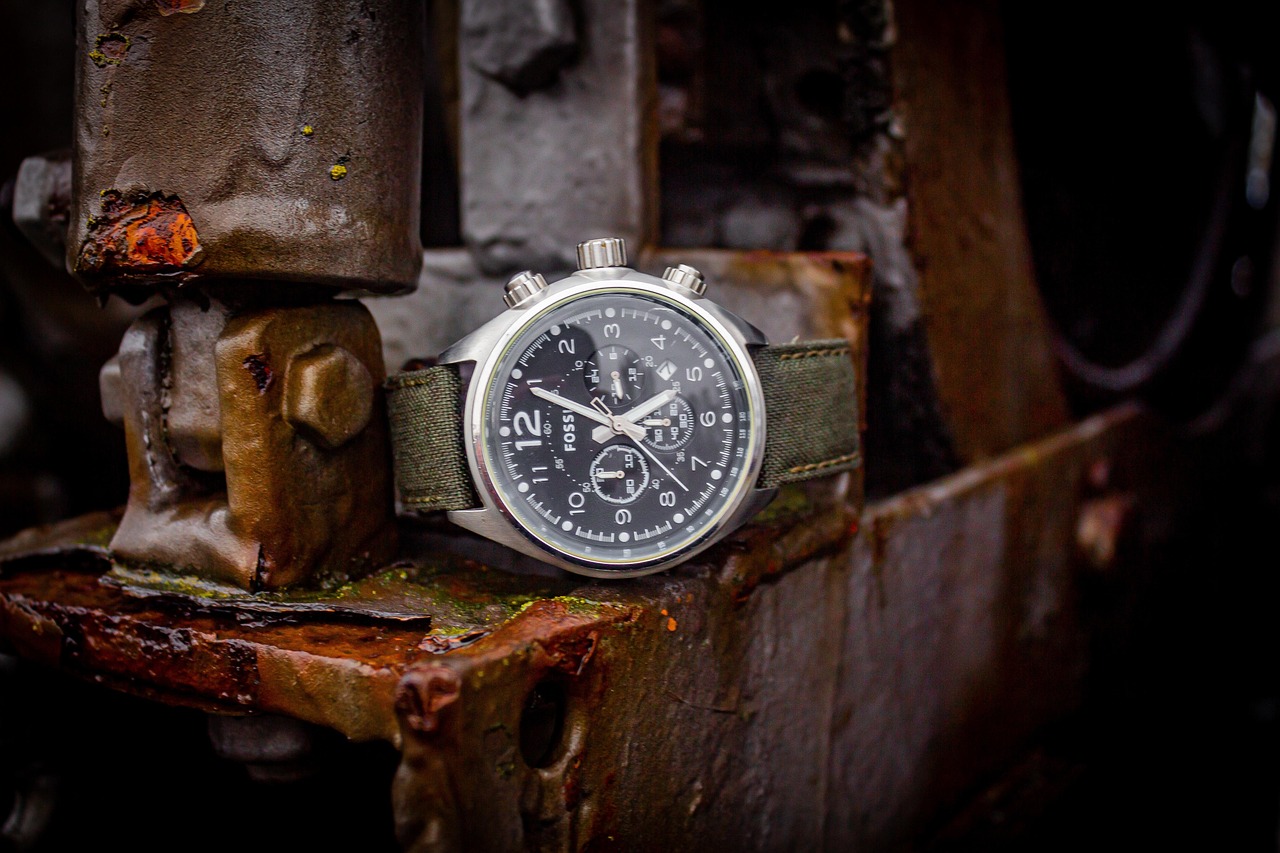
What Font Does Fossil Use? (2026)
What Font Does Fossil Use?
Quick answerThe Fossil logo is custom lettering, not a downloadable font. Its sturdy, slightly slab-flavored serif gives off a vintage-Americana, heritage feel. Fossil has never officially published the exact typeface, so treat any name as a closest match. For a free look-alike, a slab serif like Roboto Slab or a sturdy text serif like Bitter gets you close.
If you have ever flipped over a Fossil watch tin or scrolled the brand’s site, you have noticed the typography leans nostalgic on purpose. People searching for the fossil font usually want to recreate that retro-Americana, made-to-last vibe. The honest answer is that the wordmark is bespoke lettering rather than a font you can install, but the style is easy to approximate. For more brand breakdowns, see our famous brand fonts hub.
What font is the Fossil logo?
The Fossil logo is custom-drawn lettering and is not available as a font for download. The wordmark reads as a sturdy serif with slab-leaning weight: thick, even strokes, modest contrast, and squared-off terminals that feel stamped or tooled rather than delicately engraved. That gives it a workshop, leather-goods, heritage-brand character that suits a company built on watches, wallets, and vintage tins. Because it is trademarked artwork, the exact contours have been tuned by Fossil’s design team and should not be assumed to match any off-the-shelf typeface.
What is Fossil’s brand typeface?
Fossil has not officially documented a single public brand typeface, so anything stated here is reported and approximate rather than confirmed. Across marketing, packaging, and product imagery the brand tends to pair its heritage wordmark with clean, neutral supporting type so the nostalgic lettering stays the star. In practice that means the logo carries the slab/serif personality while body copy and UI lean toward straightforward, readable sans-serifs. If you need a confirmed face for a licensed project, contact Fossil directly rather than relying on community guesses.
Free fonts that look like the Fossil font
You cannot download the real wordmark, but you can rebuild the heritage feel with free, well-licensed fonts. The goal is sturdy, dependable letterforms with a touch of vintage weight.
Use case Fossil uses Free alternative
Logo / wordmark Custom slab-leaning serif lettering Roboto Slab (Bold), Zilla Slab
Headlines Sturdy heritage serif tone Bitter, Arvo
Body / UI Clean neutral supporting type Source Sans 3, Inter
Roboto Slab gives you the tooled, stamped feel for a logotype, while Bitter reads warmer for headlines. Keep body copy in a quiet sans so the heritage type does the talking.
Why does Fossil use this kind of type?
Fossil’s whole identity is built on nostalgia, the brand even sells watches in throwback tins, so the typography has to signal craftsmanship and history at a glance. A sturdy slab/serif wordmark communicates durability and old-school authenticity in a way a sleek geometric sans never could. That heritage cue lets a relatively modern accessories company feel like it has decades of workshop pedigree, which is exactly the emotional shortcut the design is engineered to deliver.
Is the Fossil font free to download?
No. The Fossil logo is custom-drawn lettering owned by the brand and is not distributed as a downloadable font. To get a similar look for free, use an open-license slab serif such as Roboto Slab or Zilla Slab and recreate the heritage feel yourself rather than copying the wordmark.
What kind of font is the Fossil logo?
It reads as a sturdy serif with slab-leaning weight: thick even strokes, low contrast, and squared terminals. That tooled, stamped quality gives it a vintage-Americana, heritage-brand character. It is bespoke artwork, so it does not exactly match any single commercial font you can buy or download.
What free font looks most like Fossil?
Roboto Slab in a bold weight is the closest free match for the logotype because it shares the sturdy, squared, slab character. For headlines with a slightly warmer heritage tone, Bitter or Arvo work well. Pair either with a neutral sans like Source Sans 3 for body text.
Does Fossil have an official brand typeface?
Fossil has not publicly published a single official brand typeface, so any specific name is reported and approximate. The custom wordmark carries the heritage personality, while supporting text tends to use clean, neutral sans-serifs. For a confirmed face on a licensed project, contact Fossil’s brand team directly.